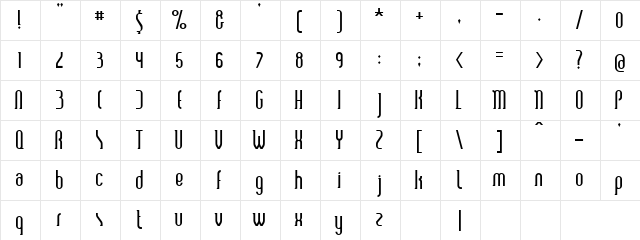
Gizzard Honker Regular
Design Context for Gizzard Honker Typeface
Gizzard Honker offers clean, dependable letterforms without strong stylistic allegiance, making it a practical choice for designers who need flexibility.